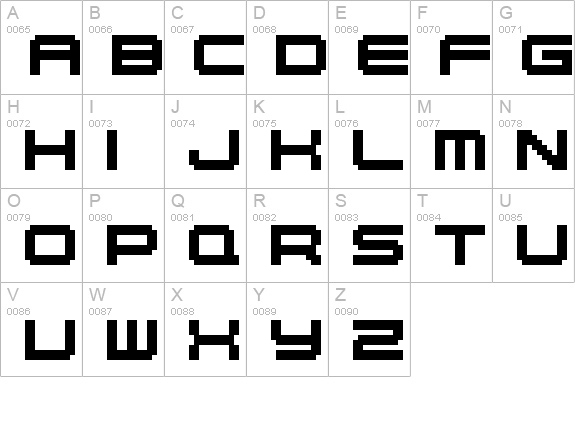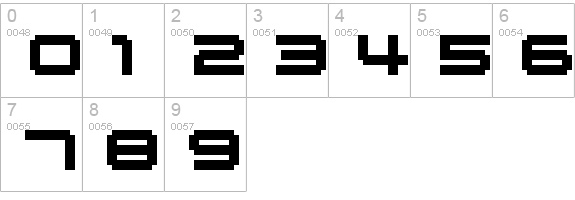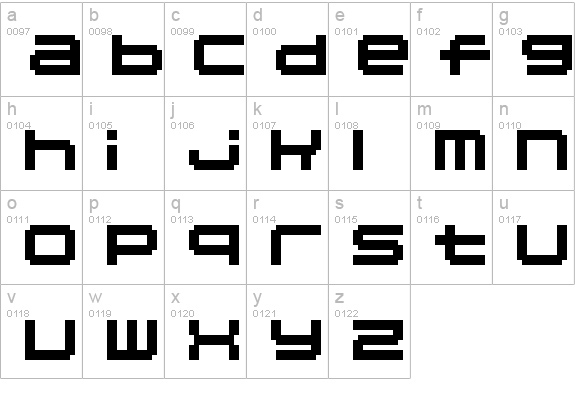
04b 20 font is a stylish and modern typeface that exudes a sense of edgy sophistication. With its bold, blocky letters and clean lines, this font is perfect for making a statement in your designs. Whether you're creating posters, logos, or social media graphics, 04b 20 font will add a touch of contemporary flair to your projects. What's even better is that this font is available for free download at FontsMarket.com, making it easily accessible for designers and creatives looking to elevate their work with a fresh and eye-catching typeface. Don't miss out on the opportunity to add 04b 20 font to your font library and take your designs to the next level!